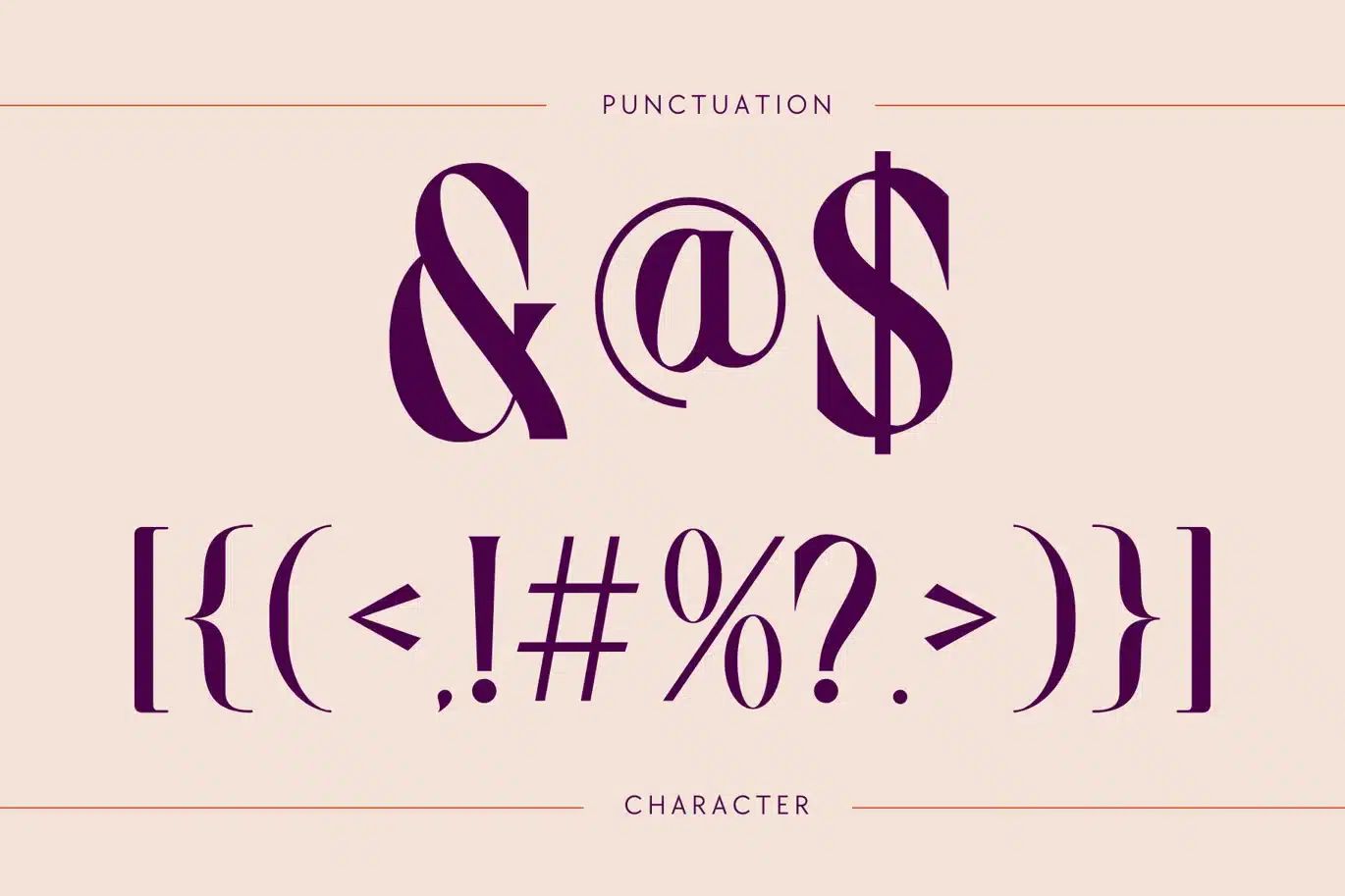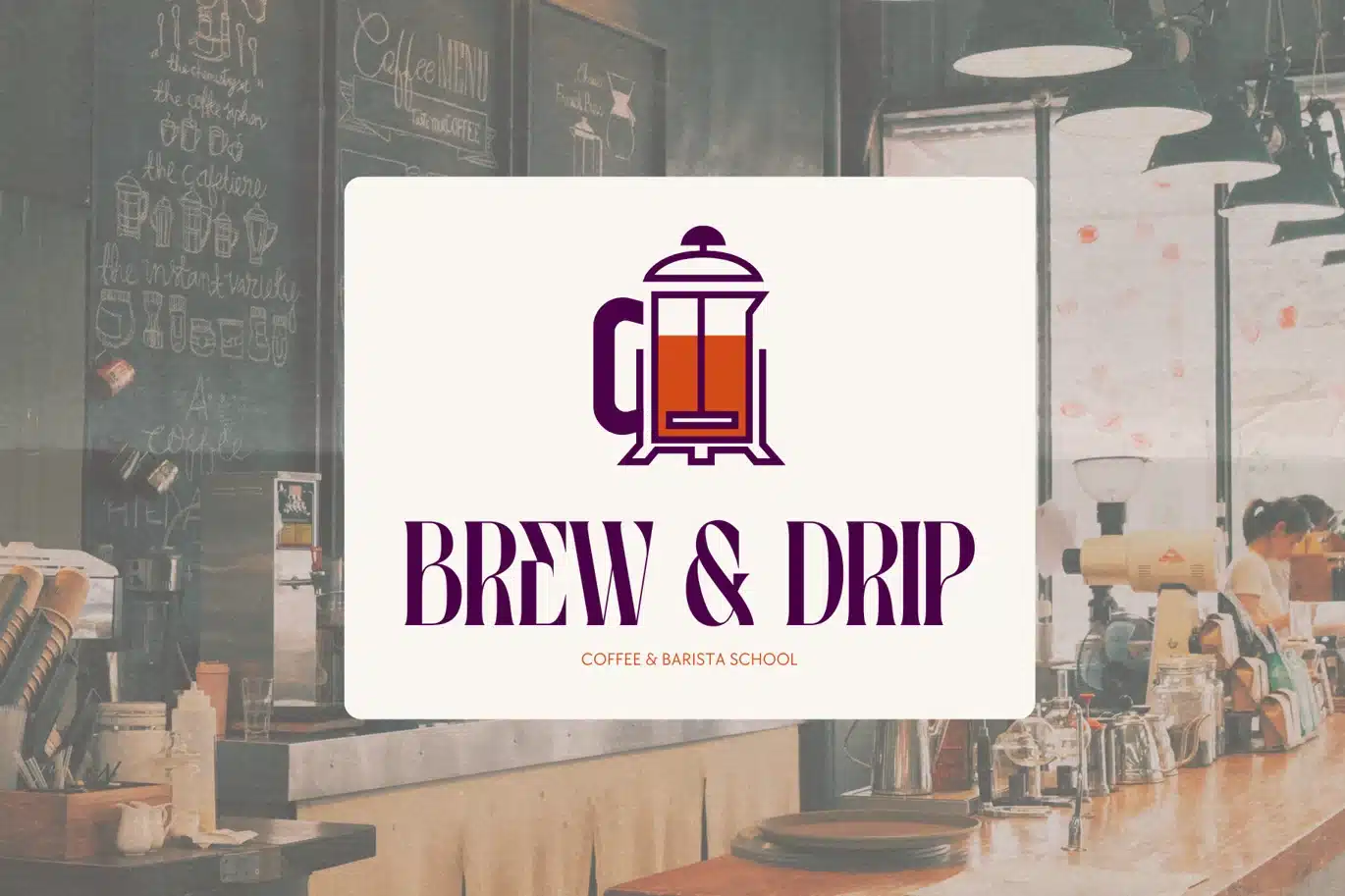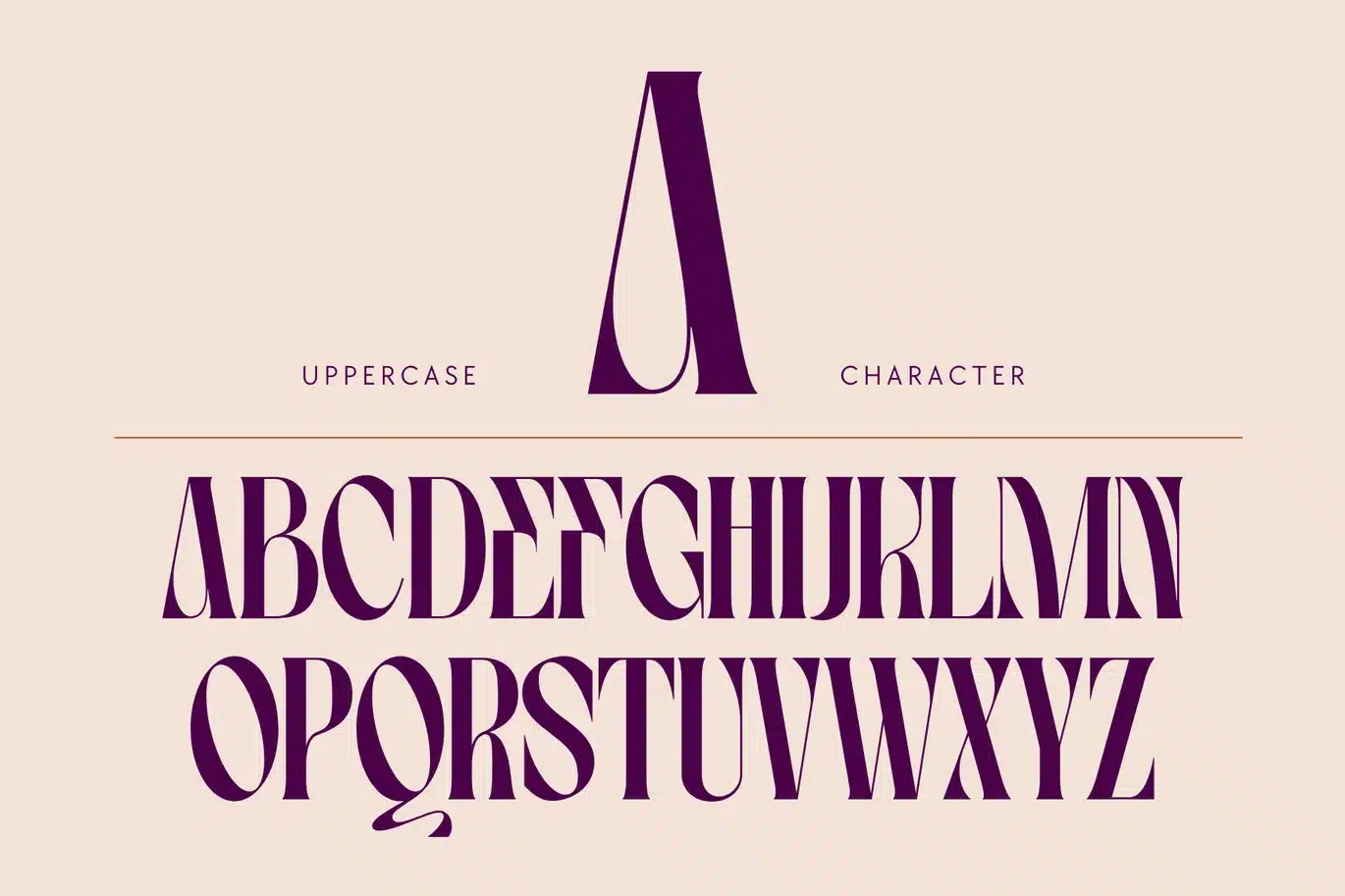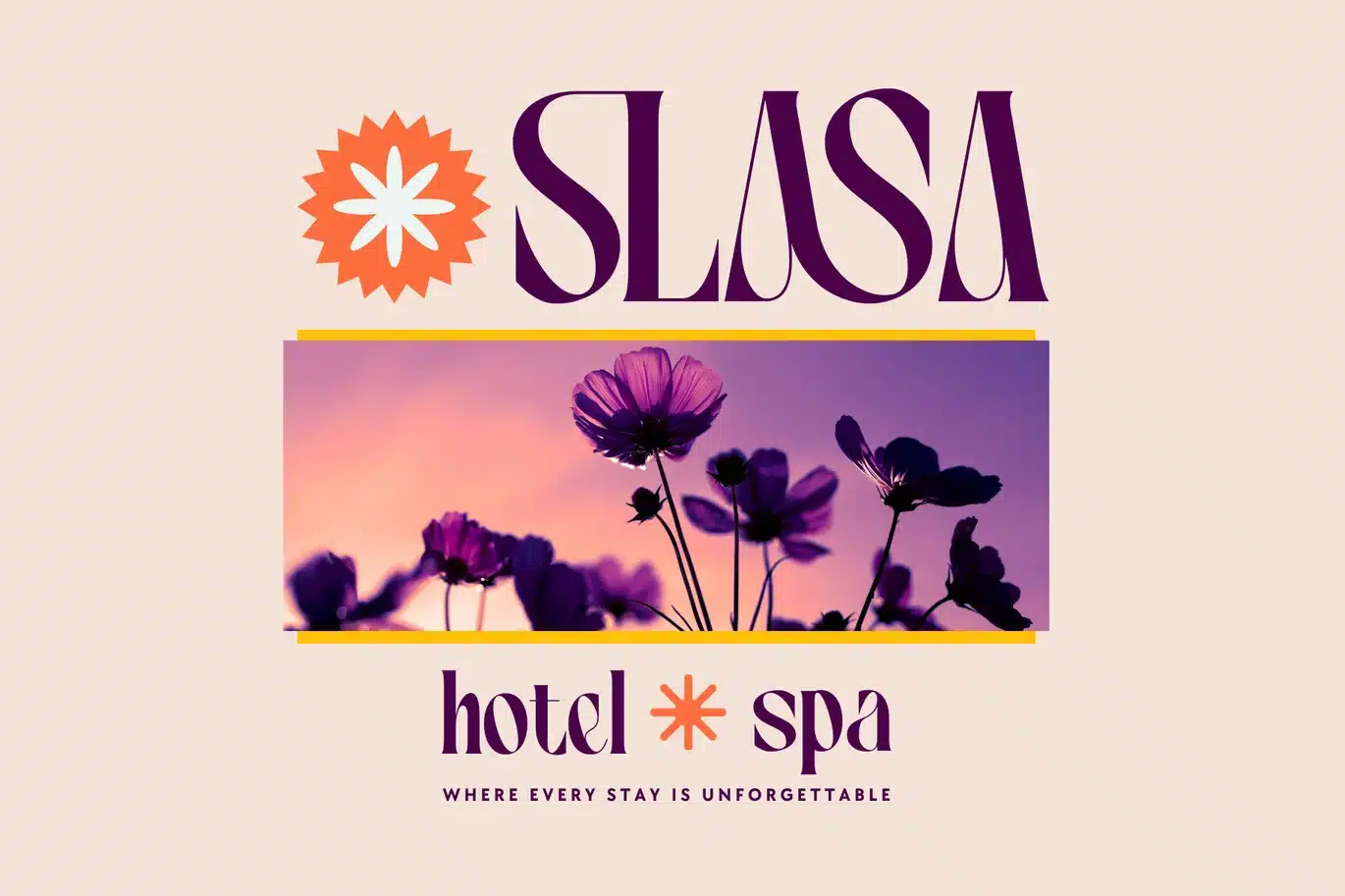
Gasher- Branding Logo Font
Gasher is a sophisticated modern serif font that combines classic elegance with a contemporary edge, making it perfect for high-end fashion logos, bold poster designs, and refined branding. Its high contrast between thick and thin strokes, paired with sharp serifs and graceful curves, gives it a luxurious, polished look that stands out on any medium. Ideal for use in fashion projects, Gasher's timeless appeal and versatile style bring a touch of exclusivity to digital and print designs, elevating the overall aesthetic of any brand.